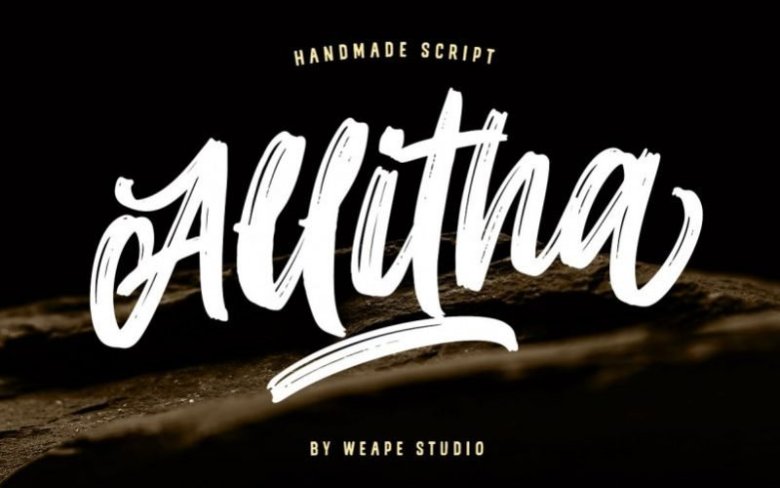
Allitha Brush Font
Introducing Allitha handmade script font, with natural rough dry brush strokes, and the stroke of hand quickly. You can use and enjoy Allitha, for promotional material and anything.